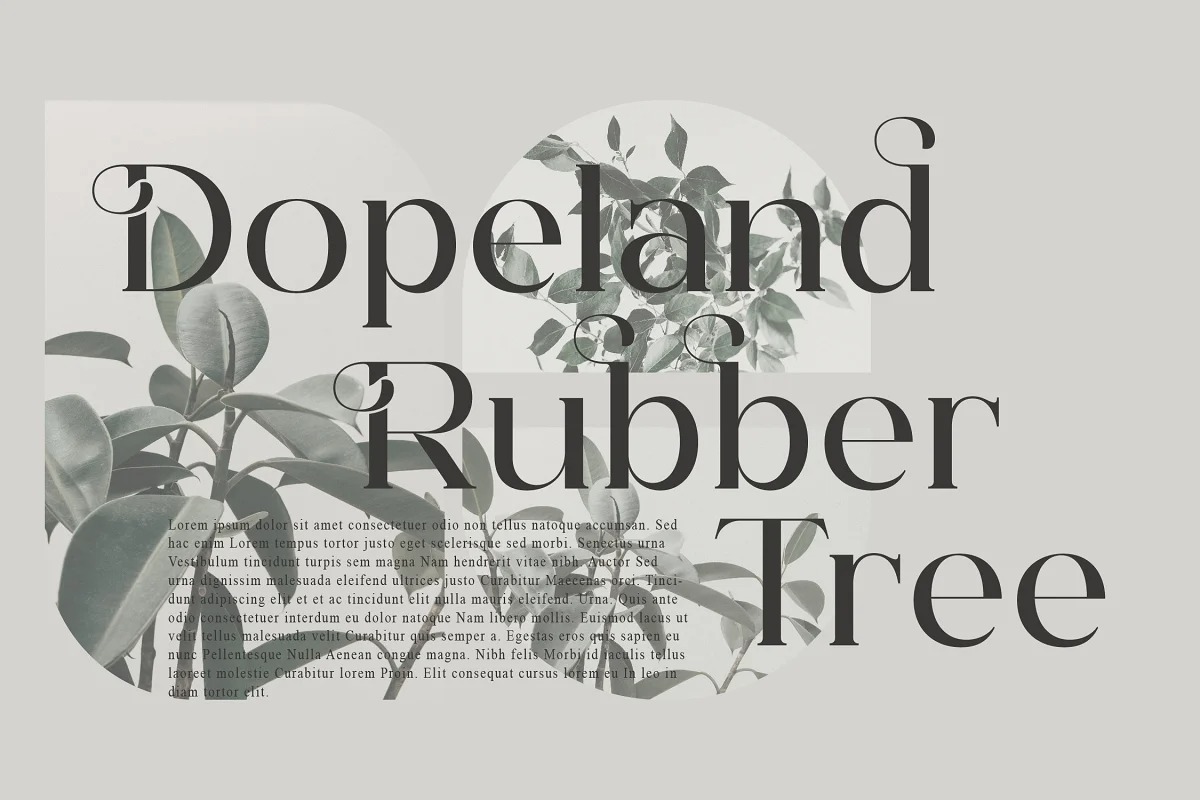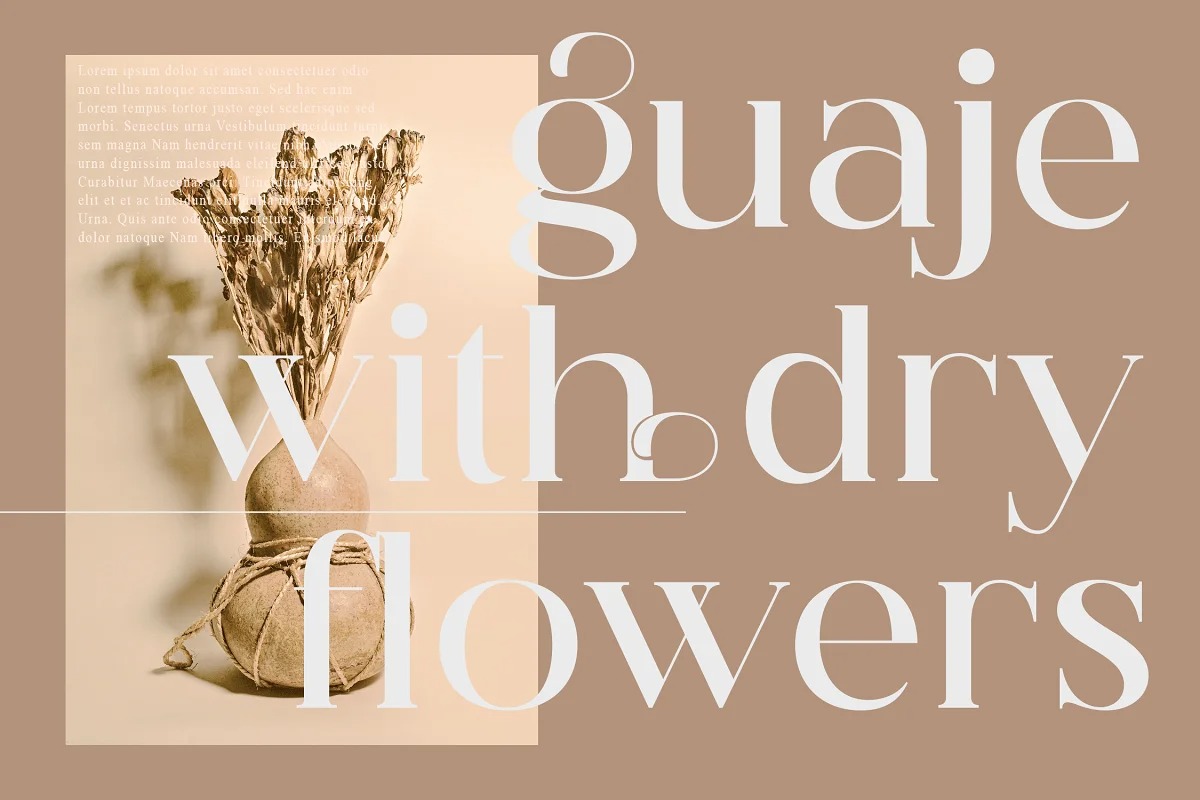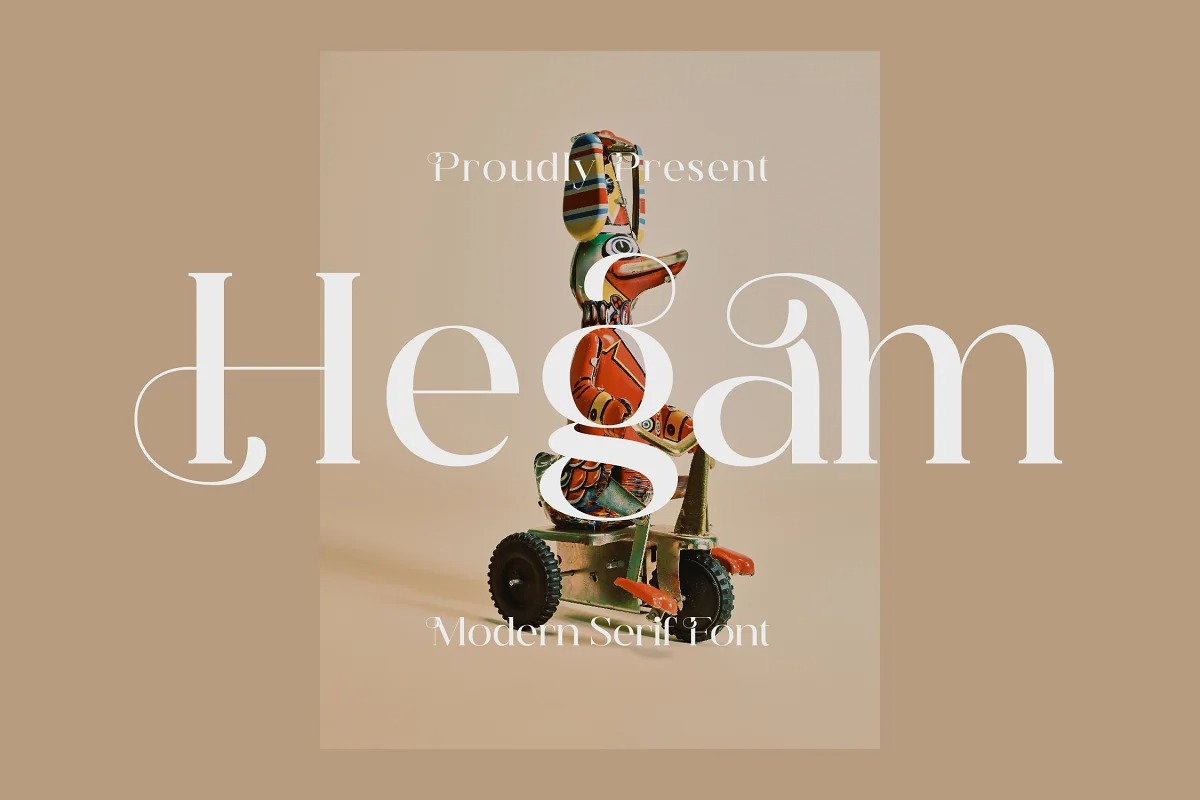
Hegam Serif Font
This typeface designed by Storytype Studio is a bold modern serif with lots of binding and alternative fonts. It’s a modern typeface that has own unique style & modern look. This typeface is perfect for an elegant & luxury logo, book or movie title design, fashion brand, magazine, clothes, lettering, quotes, and so much more.